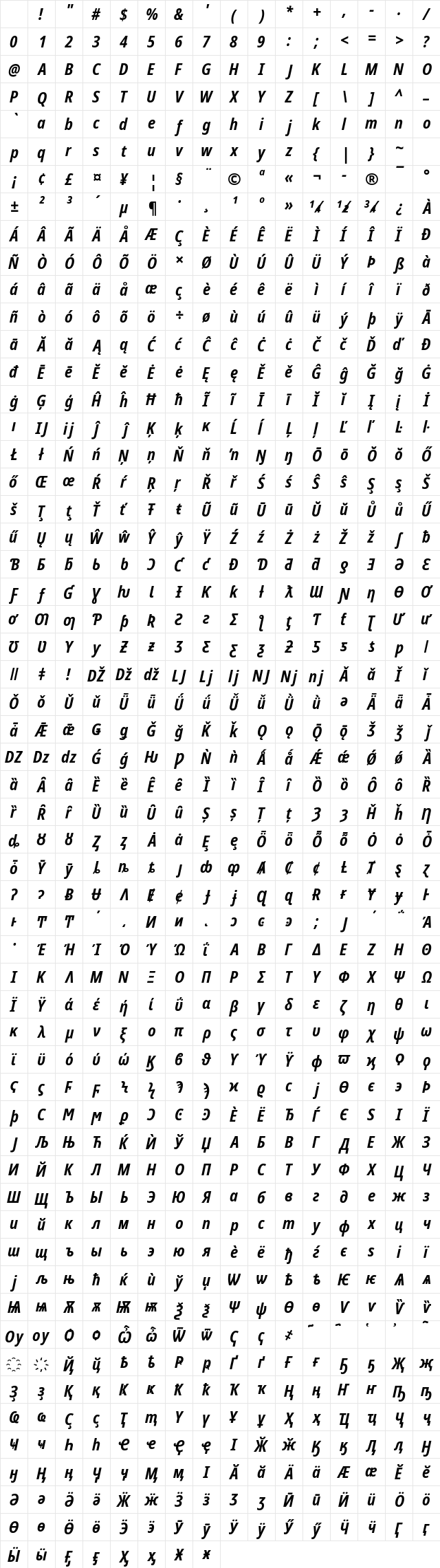
Complete NotoSans Nerd Font Mono Bold Italic glyph index. Displaying only characters natively supported by NotoSans Nerd Font Mono Bold Italic font.
NotoSans Nerd Font Mono uses fixed-width spacing throughout, giving it the structured, systematic character associated with coding environments and technical documentation. The slanted form adds forward momentum and visual energy. Its bold stroke weight gives it real presence on the page.